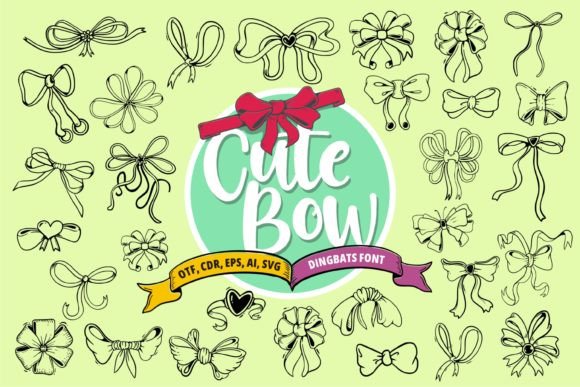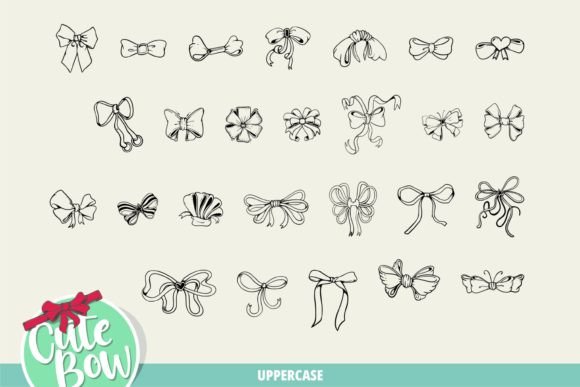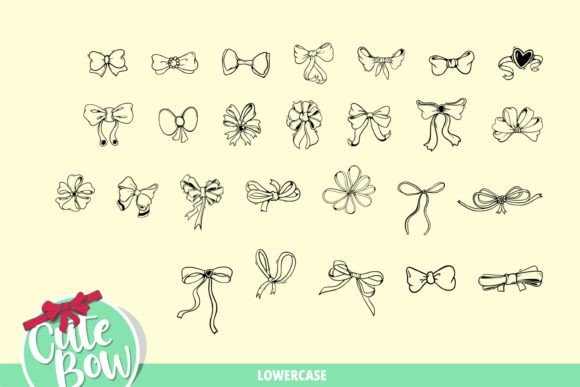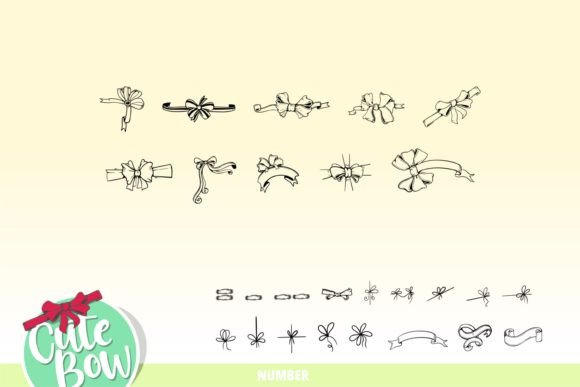
Cute Bow Font
About the Cute Bow Font
Discover the charm of Cute Bow Font. This font is a perfect blend of modern aesthetics and classic appeal. Cute Bow is a delightful dingbats font featuring adorable bow-themed glyphs. Each character is meticulously crafted with intricate details, perfect for adding charm to invitations, cards, and crafts. With its playful design, Cute Bow adds a touch of whimsy and sweetness to any creative project or decorative element.
Cute Bow excels in projects requiring a lighthearted and charming aesthetic. It’s ideal for branding elements like logos for children’s products, stationery, or sweet treat businesses. Use it sparingly in headlines or short, impactful phrases on invitations, packaging, or social media graphics. Avoid using it for large blocks of text or body copy; its decorative nature makes it unsuitable for readability in extended passages.
Its playful personality pairs well with clean sans-serif fonts like Open Sans or Lato for a balanced contrast. For a more sophisticated feel, consider pairing it with a delicate serif typeface such as Playfair Display or Lora. Avoid pairing it with other highly decorative or script fonts, which would create visual clutter.
Cute Bow’s overall personality is undeniably playful and sweet, making it a perfect choice for projects targeting a young or feminine audience. Its whimsical charm is best deployed strategically to enhance, rather than overwhelm, the overall design.
Cute Bow Font Usage Examples
Cute Bow Font Example